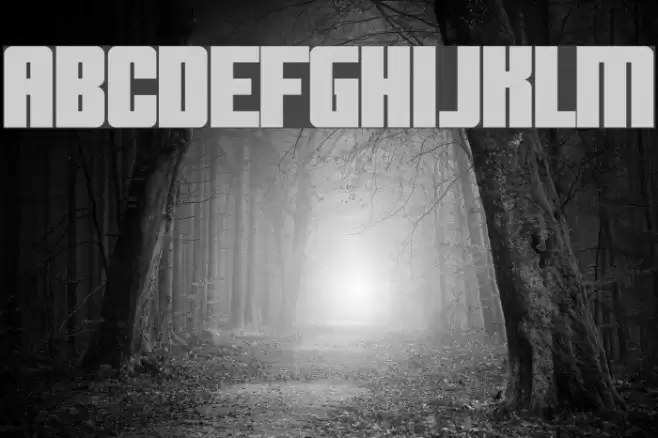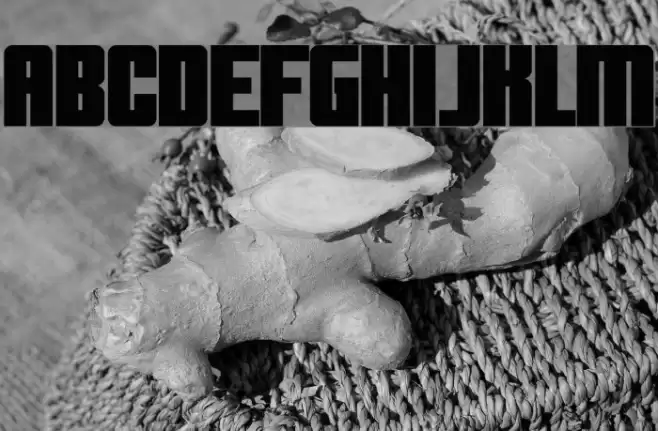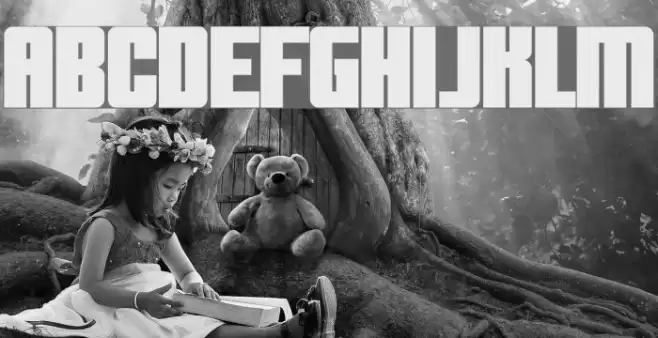
Clearwerkkraftremix Font
Clearwerkkraftremix Description
This bold and striking font features a blocky, geometric design with thick, uniform strokes that convey a sense of strength and stability. The characters are tightly spaced, enhancing the compact and robust appearance. The uppercase letters are particularly prominent, with wide, squared-off edges that give a modern, industrial feel. The numerals and special characters maintain the same boldness and geometric precision, ensuring consistency across all glyphs. This font's high contrast and solid structure make it ideal for impactful visual statements.
A bold, geometric font with thick strokes and a modern, industrial style from Uncategorized fonts.
- Proposed Projects: Ideal for branding, posters, headlines, and any project requiring a strong visual impact.
- Character Spacing: Tight
- Contrast: High